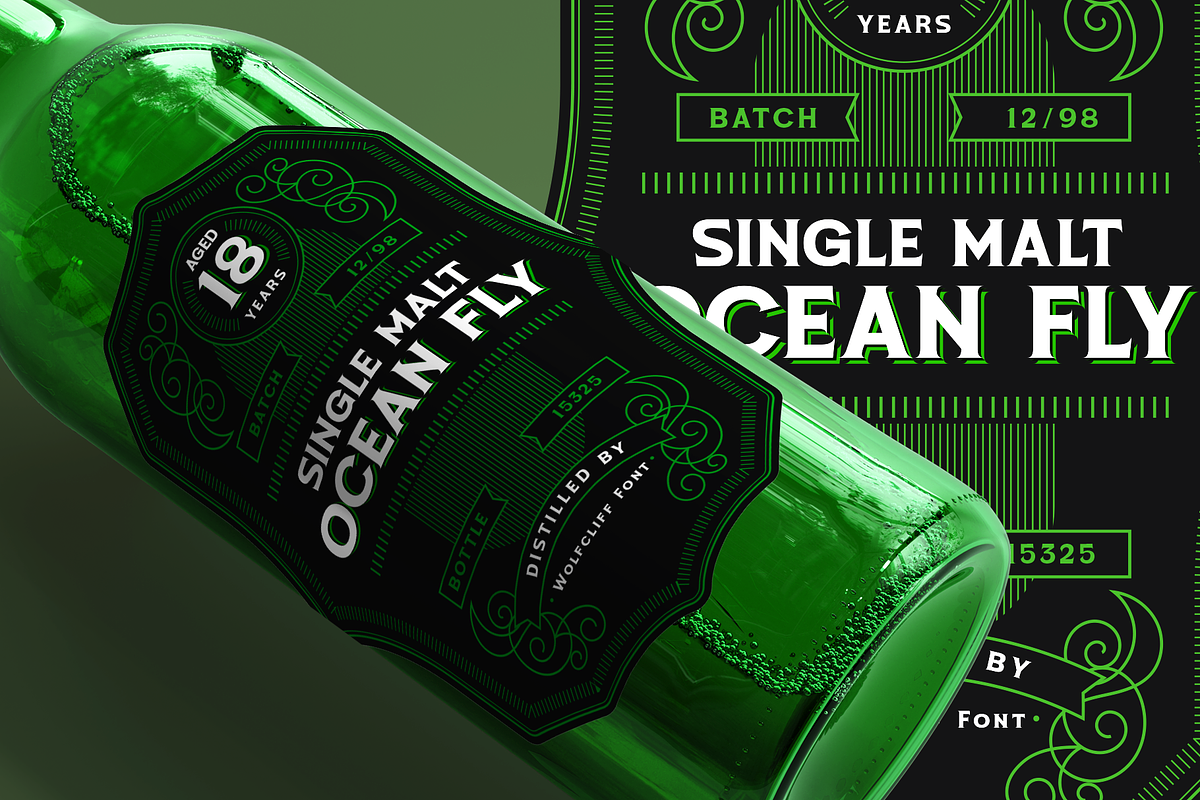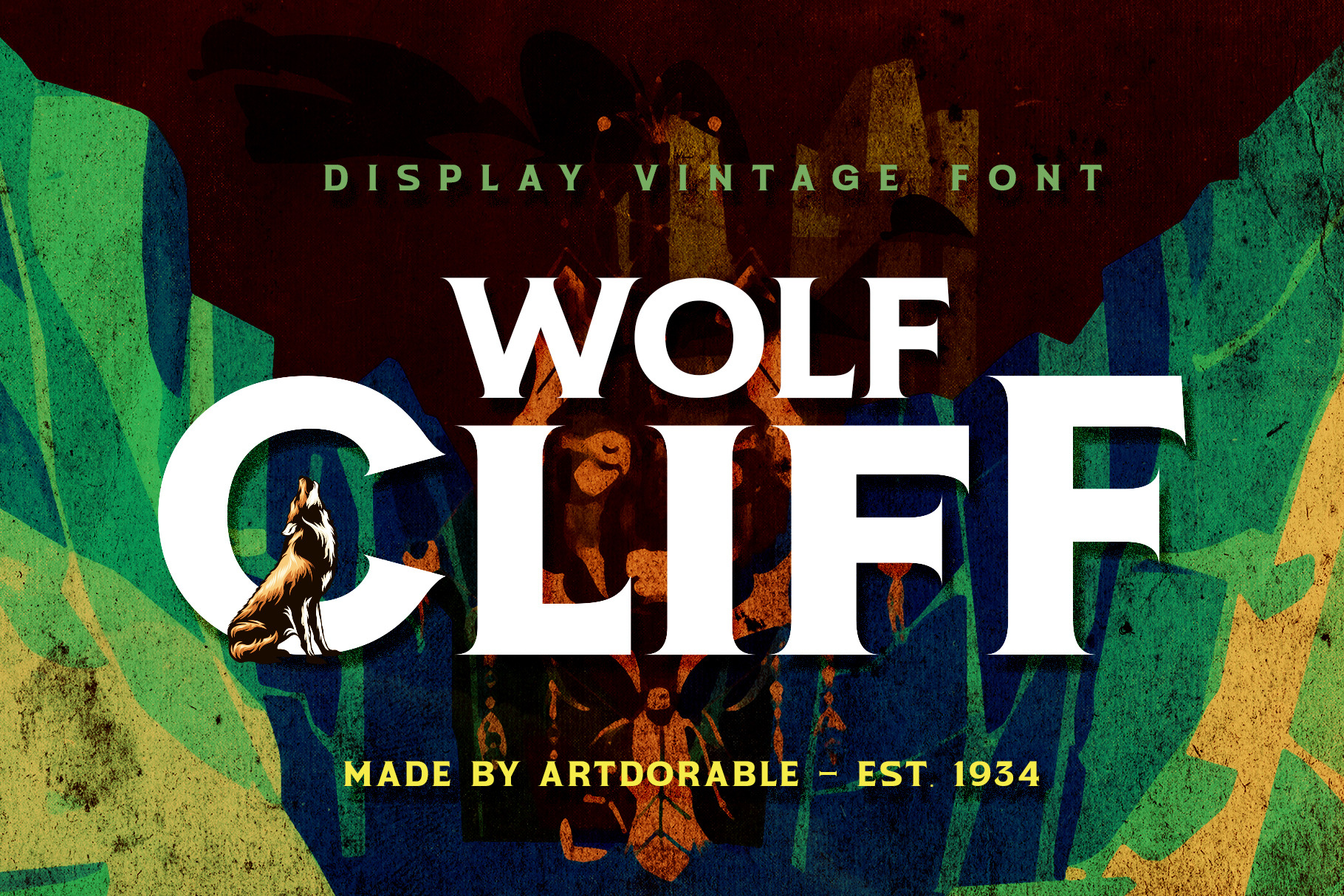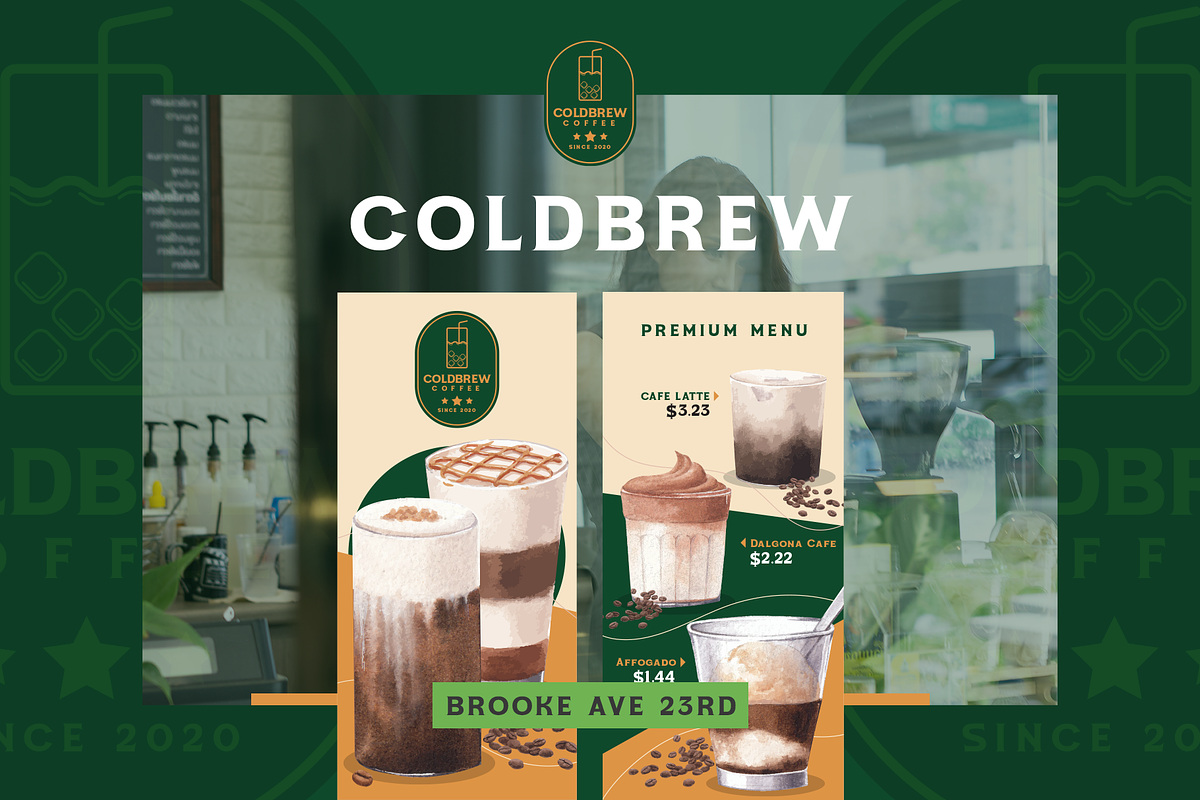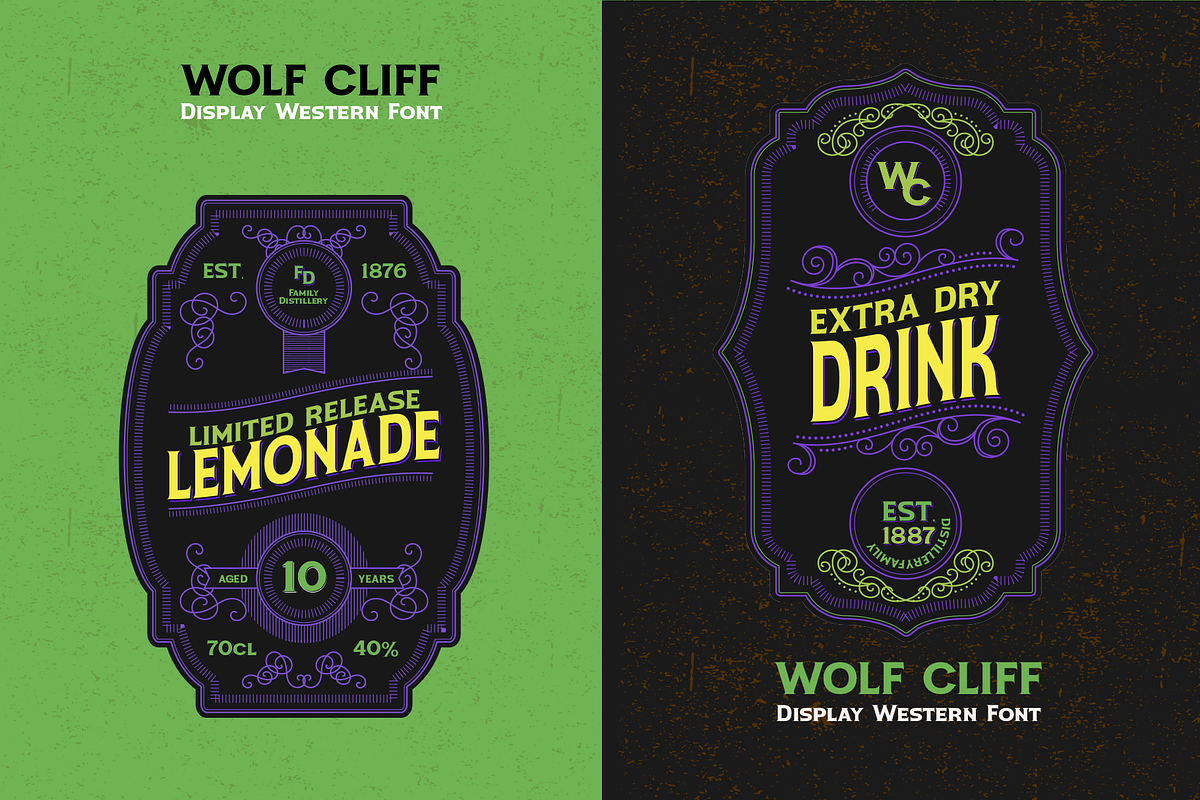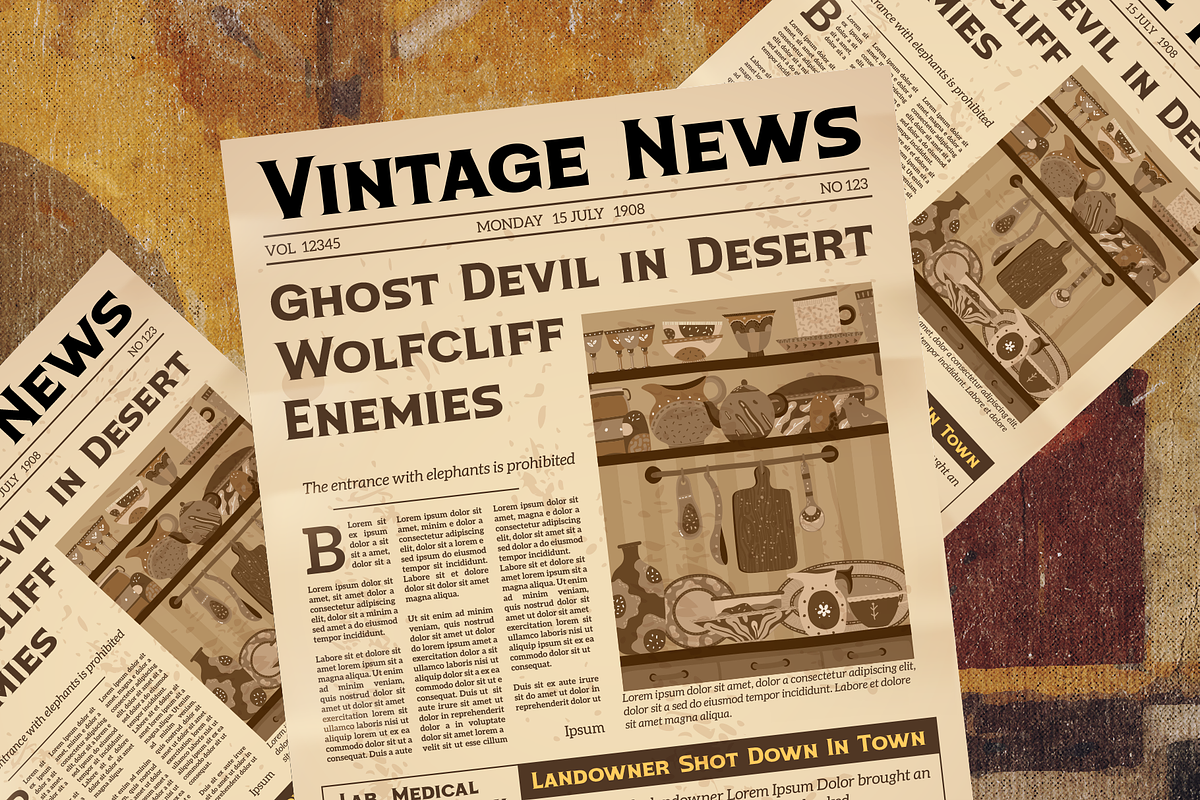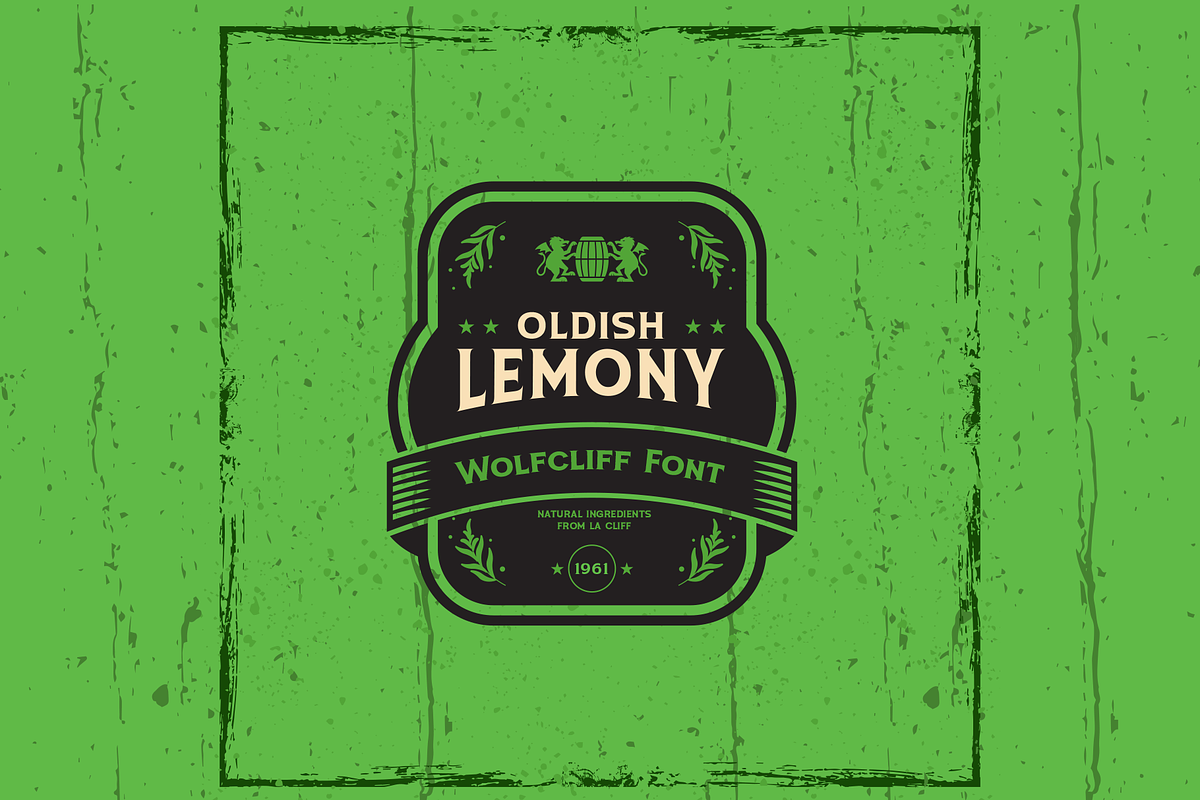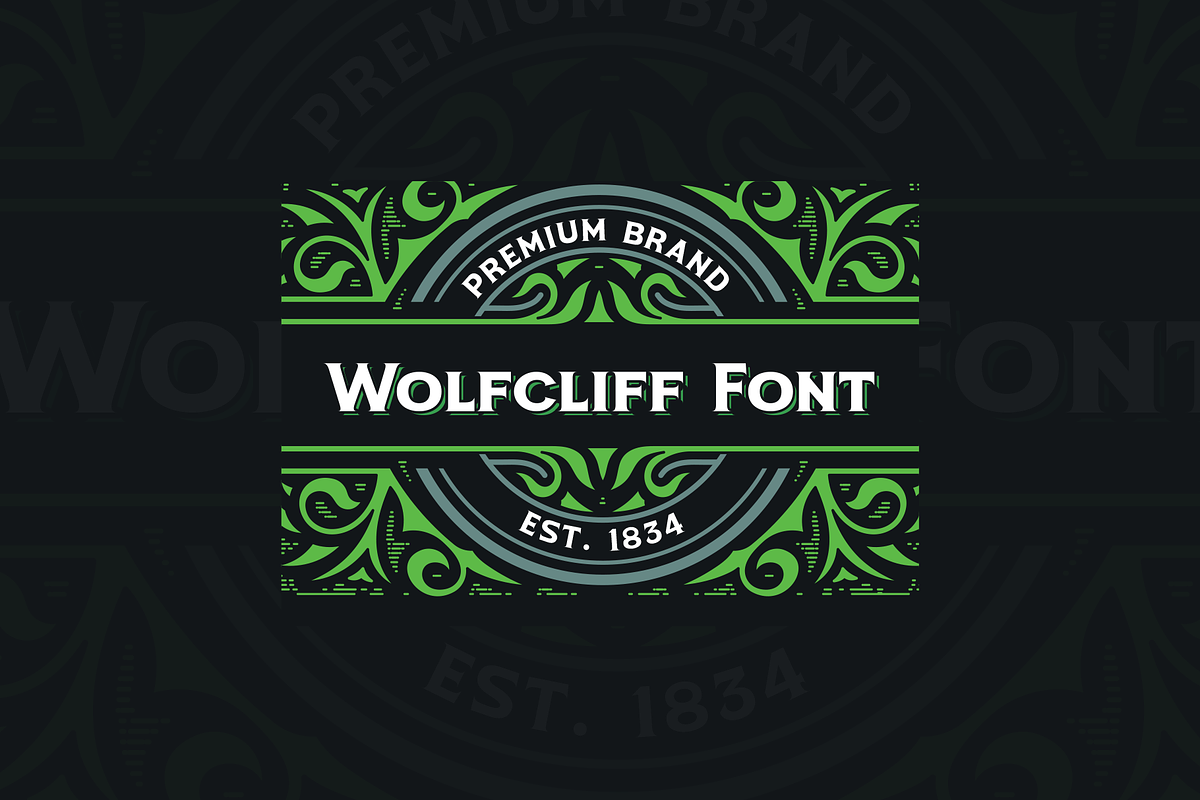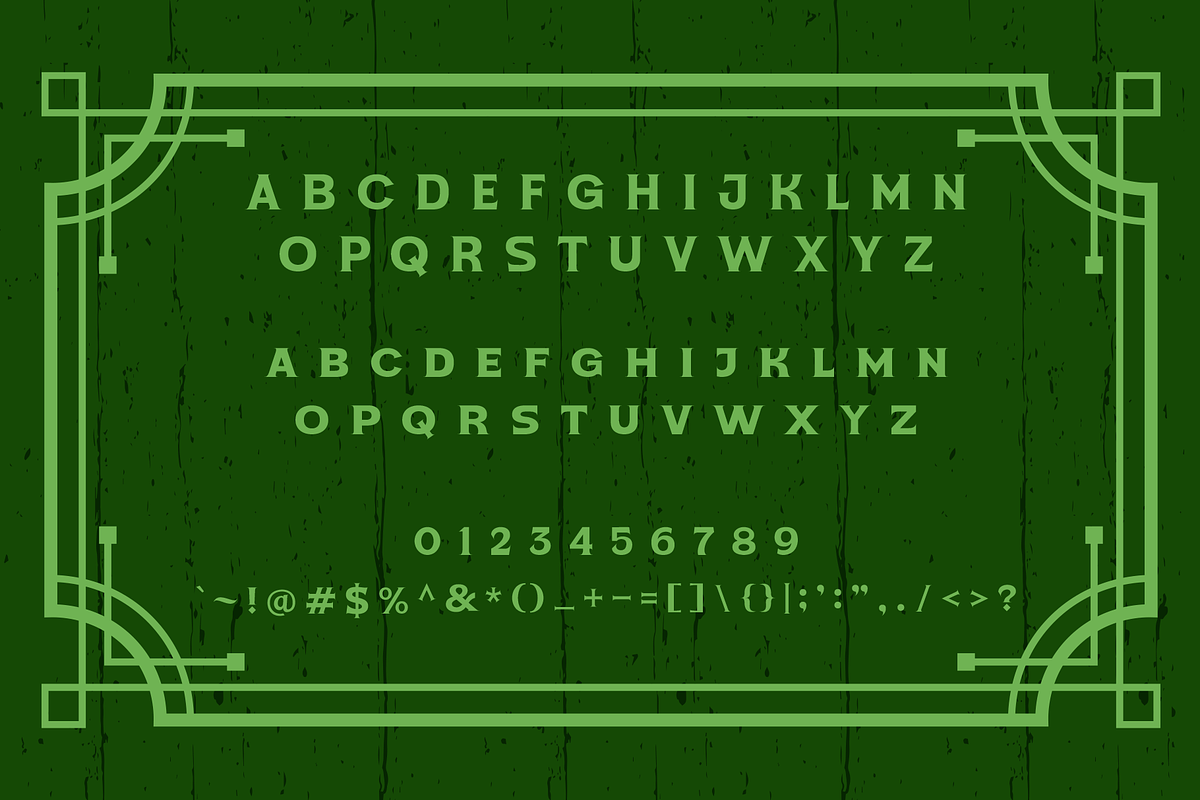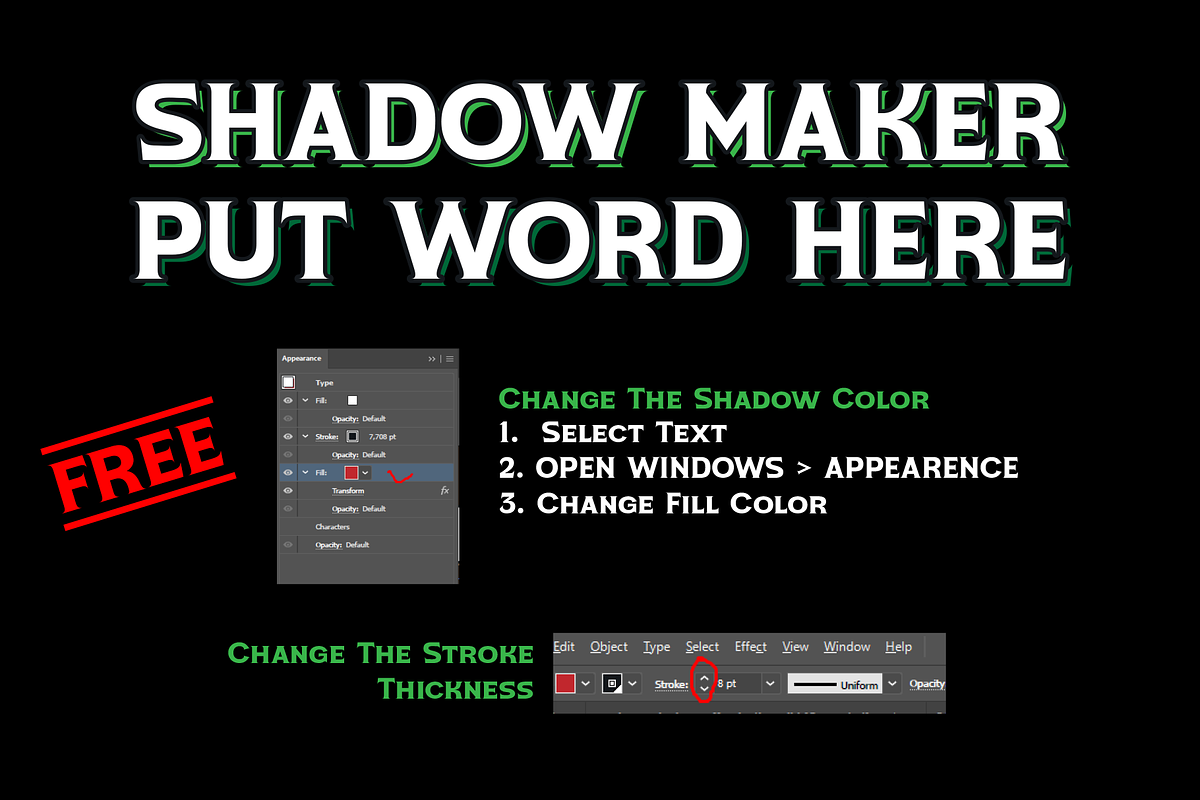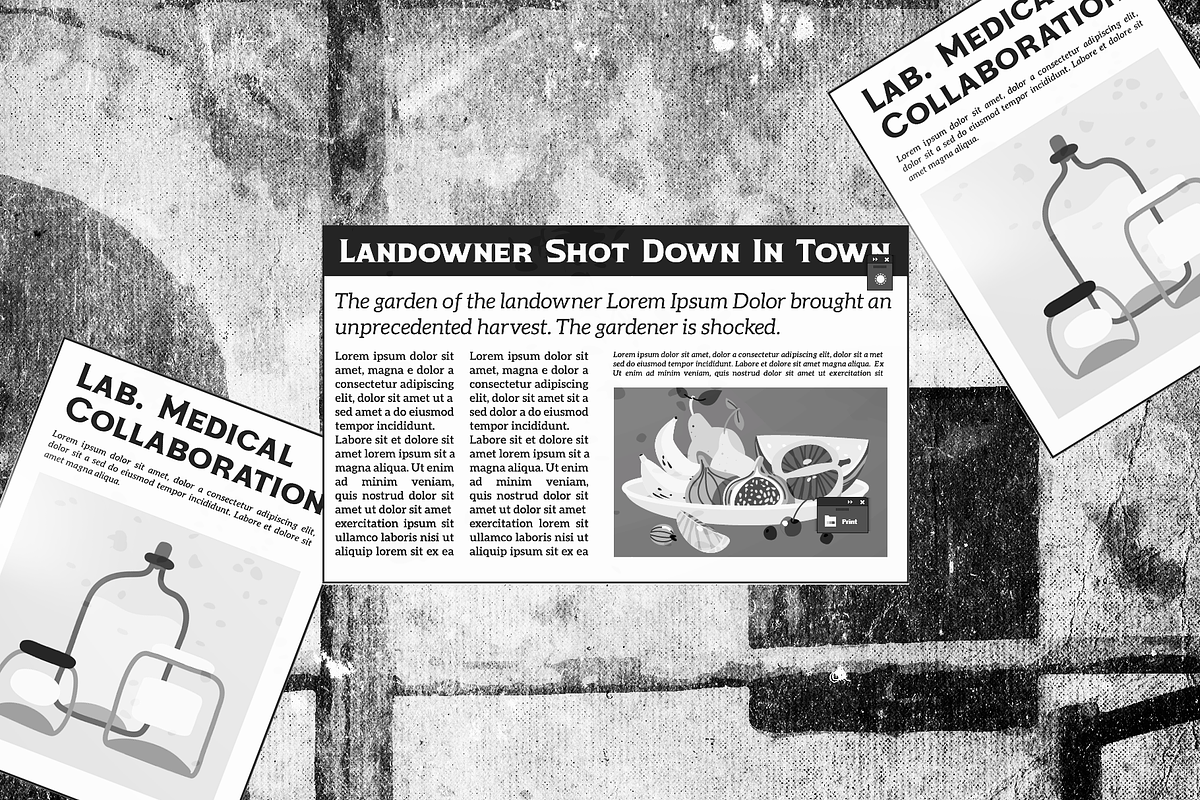
Wolfcliff - Display Vintage Font
Wolfcliff - Display Vintage Font an old style font made carefully handcrafted. The complete type from Caps and Lower Caps, numeric and punctuation. It's also have a modern touch suitable for logo text, brand label, magazine/publishing headlines and titles, or for any occasion.
Font features:
- All Caps and Small caps for lower case keyboard
- Numeric